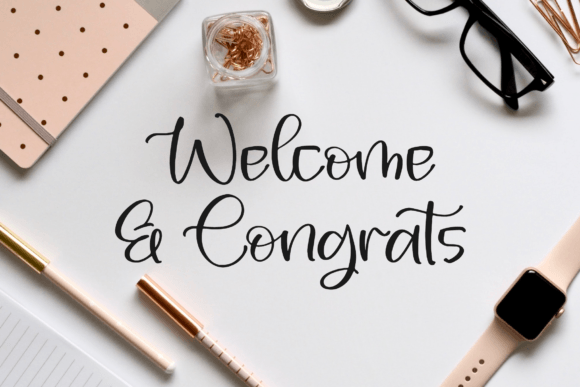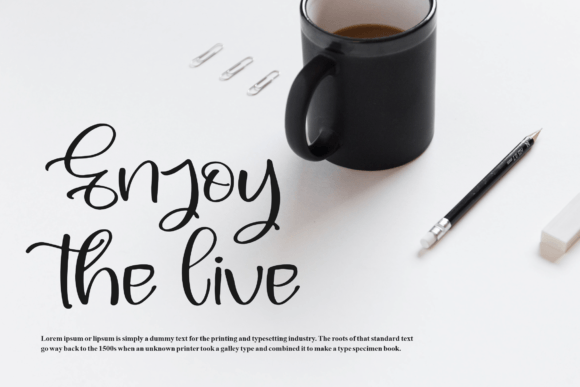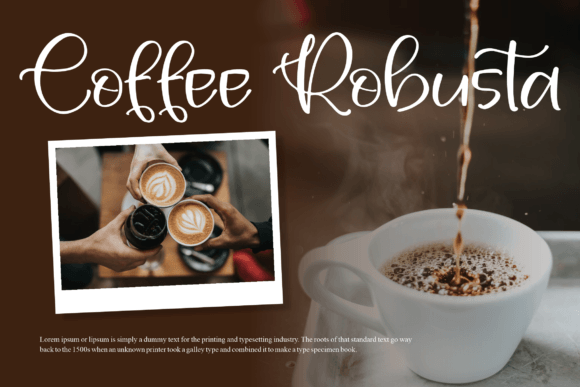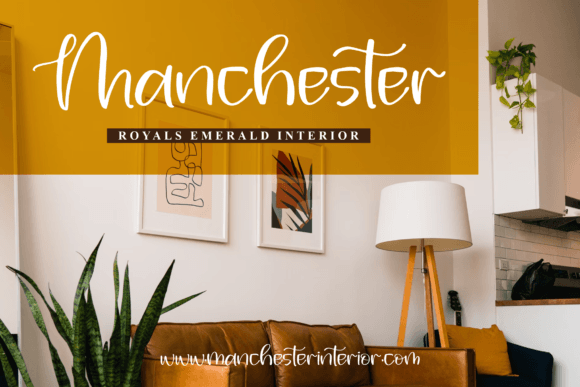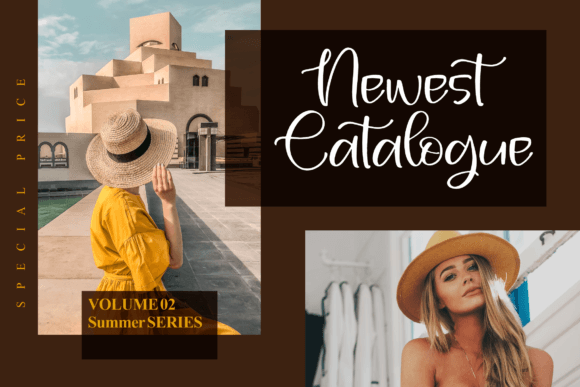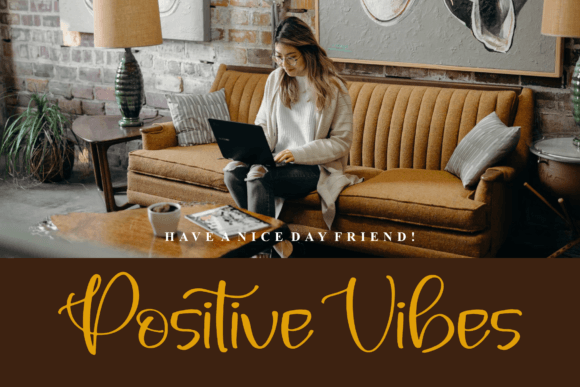
Dalmatine Font: Elevate Your Designs with a Touch of Elegance
Are you a designer or crafter looking for a beautiful handwritten font to add a personal touch to your projects? Look no further than the Dalmatine Font. This stunning script font is perfect for a wide range of applications, from logos and branding projects to homeware designs, product packaging, and more.
What is Dalmatine Font?
Dalmatine is a beautiful handwritten font that exudes elegance and sophistication. Its flowing script and delicate lines make it perfect for adding a touch of luxury to any design project. Whether you’re working on a logo, branding project, or marketing materials, Dalmatine is sure to impress.
Features of Dalmatine Font
So, what makes Dalmatine Font so special? Here are just a few of its key features:
- Beautiful Handwritten Script: Dalmatine features a stunning handwritten script that is both elegant and sophisticated.
- Versatile: This font is perfect for a wide range of applications, from logos and branding projects to homeware designs, product packaging, and more.
- Easily Readable: Despite its elegant script, Dalmatine is easily readable, making it perfect for use in body text as well as headlines.
Uses for Dalmatine Font
So, what can you use Dalmatine Font for? The possibilities are endless! Here are a few ideas to get you started:
- Logos and Branding Projects: Use Dalmatine to create a stunning logo or branding project that will set your business apart.
- Homeware Designs: Add a touch of elegance to your homeware designs, from invitations to stationery.
- Product Packaging: Make your product packaging stand out with Dalmatine’s beautiful script.
- Mugs and Apparel: Use Dalmatine to create stunning designs for mugs, t-shirts, and other apparel.
- Posters and Quotes: Create eye-catching posters and quotes that will grab attention.
- Book Covers and Name Cards: Use Dalmatine to create beautiful book covers and name cards.
- Invitation Cards and Greeting Cards: Add a touch of elegance to your invitation cards and greeting cards.
- Labels and Photography: Use Dalmatine to create beautiful labels and watermarks for your photography projects.
Why Choose Dalmatine Font?
So, why should you choose Dalmatine Font for your next project? Here are just a few reasons:
- Unique and Elegant: Dalmatine is a unique and elegant font that will add a touch of sophistication to any project.
- High-Quality: This font is designed to be high-quality and easily readable, making it perfect for use in a wide range of applications.
In conclusion, Dalmatine Font is a beautiful handwritten font that is perfect for designers and crafters looking to add a touch of elegance to their projects. With its flowing script and delicate lines, Dalmatine is sure to impress. Whether you’re working on a logo, branding project, or marketing materials, this stunning script font is sure to elevate your designs to the next level.